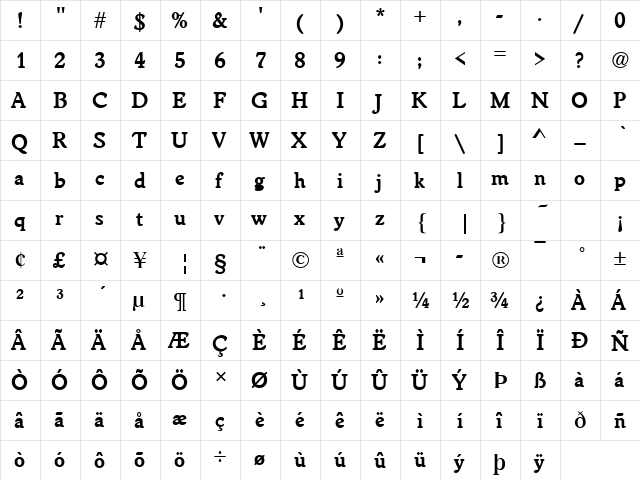
Worcester Round Becker Bold Font Preview
Design Context for Worcester Round Becker Typeface
Worcester Round Becker softens its letterforms with rounded terminals, giving it an approachable, friendly quality that works well in consumer-facing and digital contexts. Its bold stroke weight gives it real presence on the page.
A natural fit for tech startups, health and wellness brands, children's products, and friendly consumer apps.
Font Pairing: Pairs well with a rounded or humanist sans for body copy, maintaining the friendly tone without relying on Worcester Round Becker to carry extended reading.
Pro Tip: Pair Worcester Round Becker with a geometric sans for a balanced system — the rounded softness works as a warm counterpoint to harder-edged companions.